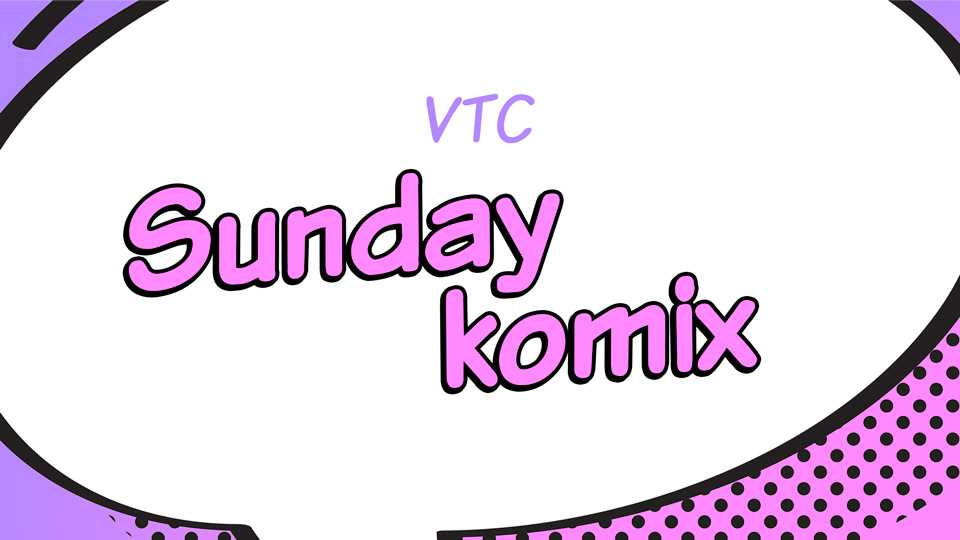
Download VTC Sunday Komix font, a simple and fun handwritten typeface inspired by comics. With range of styles Sunday Komix will be perfect for notes, quotes, kids books and crafts.